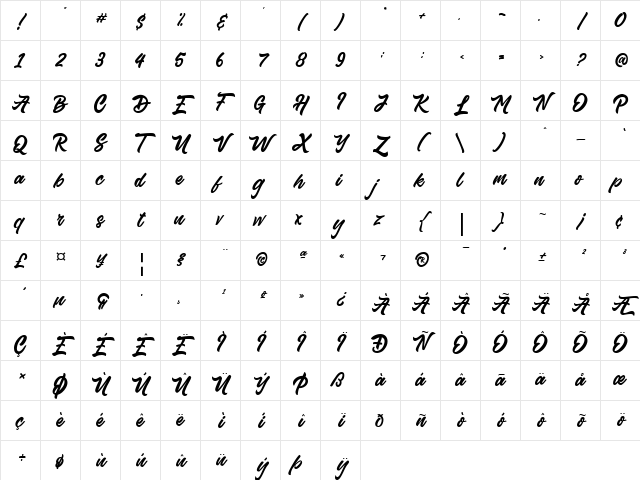
Complete Saekana Clean Regular glyph index. Displaying only characters natively supported by Saekana Clean Regular font.
Saekana Clean is a composed and adaptable typeface that performs quietly and consistently across a wide range of design contexts.